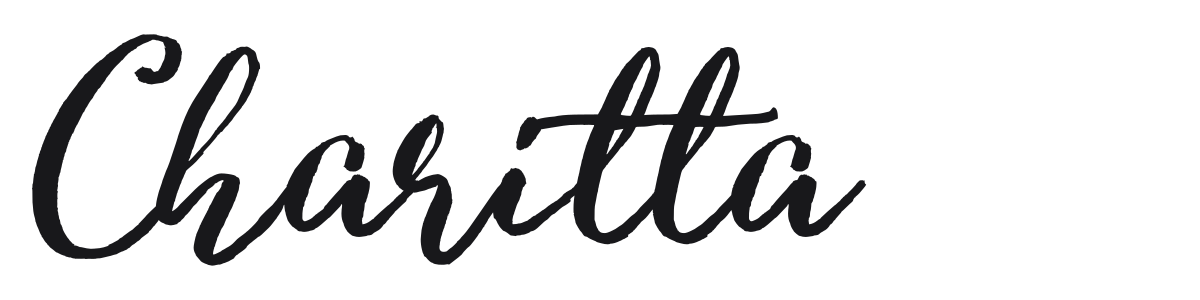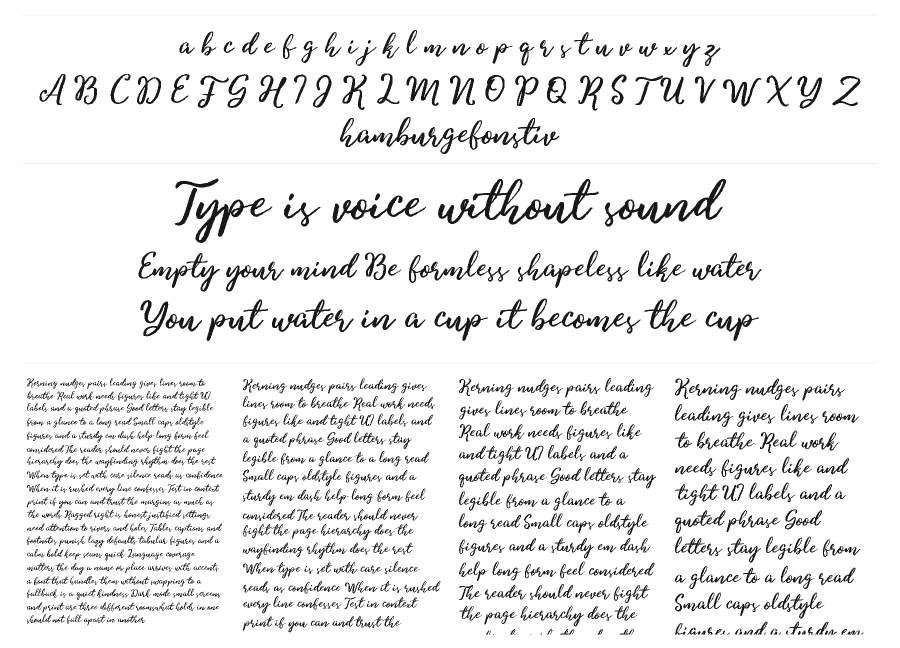
Charitta
by Lettersiro Studio · Website
Charitta is a contemporary brush script from Lettersiro with expressive thick-to-thin stroke contrast and freely flowing connections between letters. The design channels modern hand-lettering with a warm, accessible energy that works well at large display sizes. It suits branding, packaging, and event materials where a personal, handcrafted touch is the goal.